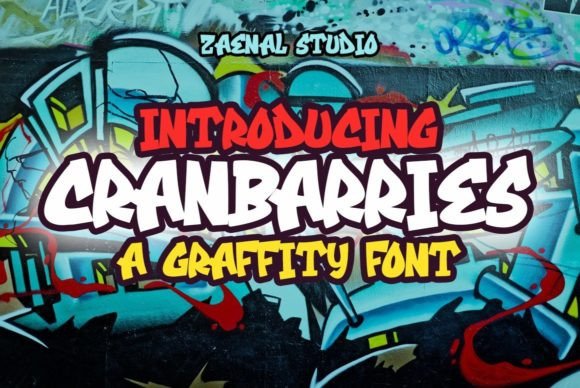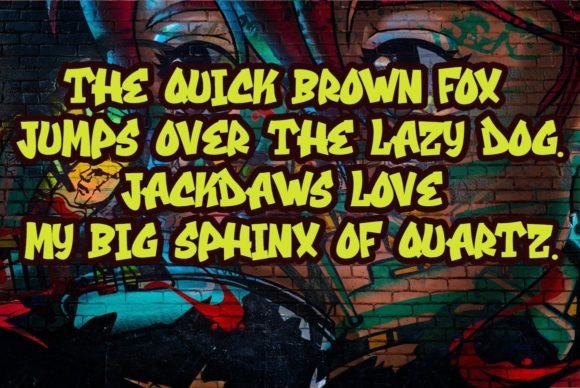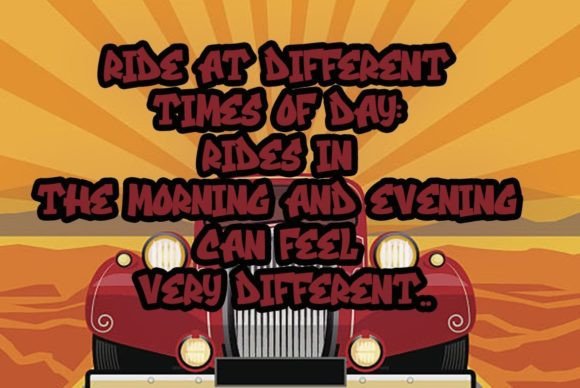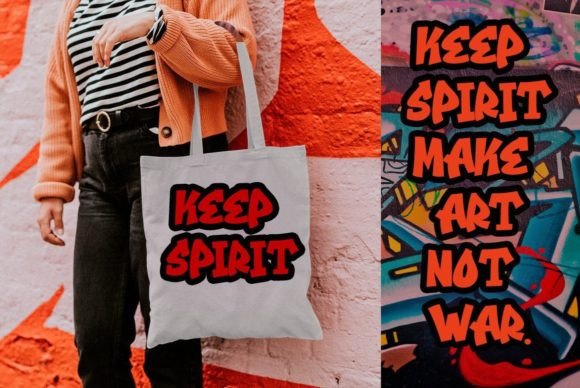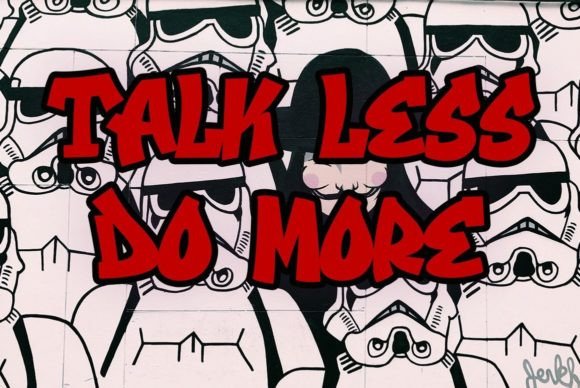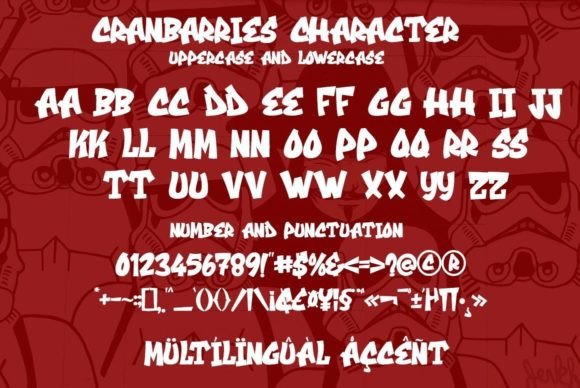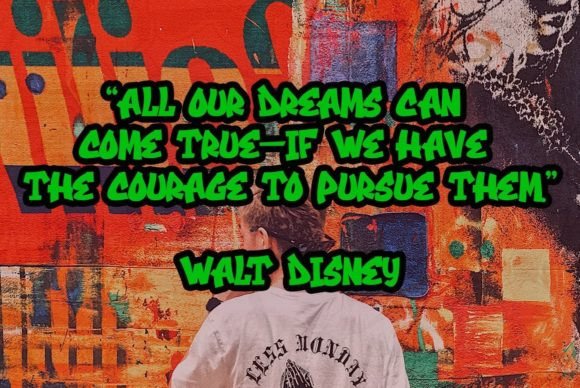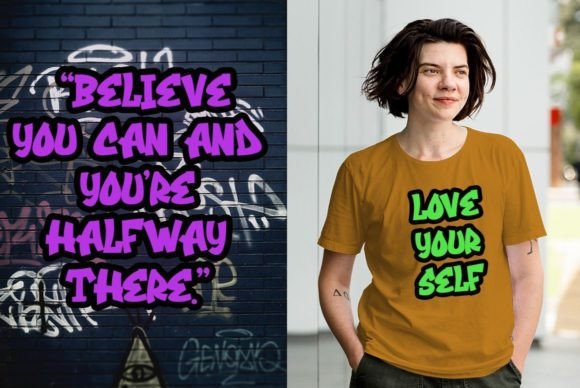
Cranbarries Font
Cranbarries is a unique and funny Grafitti display font perfect for brand and logo designs.
It is perfect for Cartoons, Vintage Logos, branding, and logo designs. You will get a classy, elegant, and of course unique and urban logo with this font.
To make it look even more unique, you will find some alternates with this typeface, so you can create the amazing design you want.